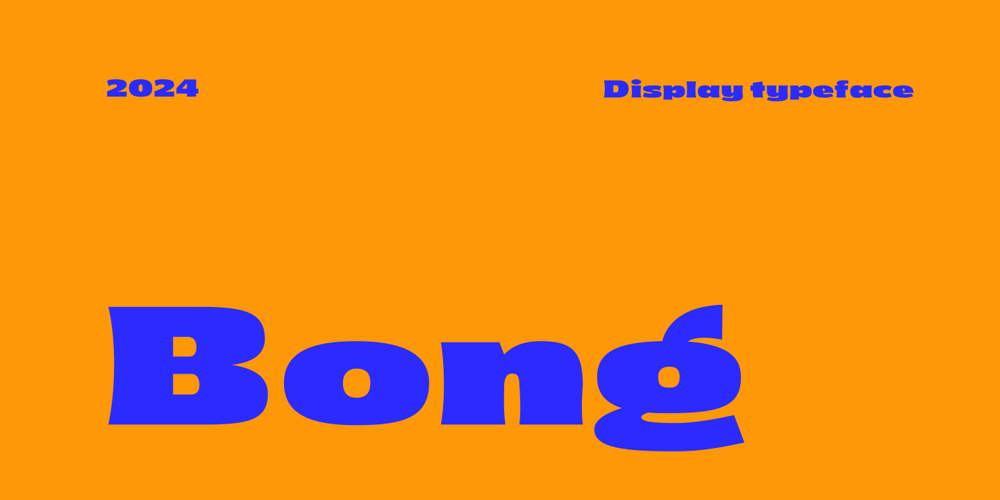
Bong
Bong font
Bong Font Family was designed by Arief Rochman and published by 4RM Font. Bong contains 1 styles and family package options. Made with a retro touch with authentic values, Bong font is inspired by the typical retro style of graphic design. Suitable for use in graphic designs such as stickers, logos, posters and others.